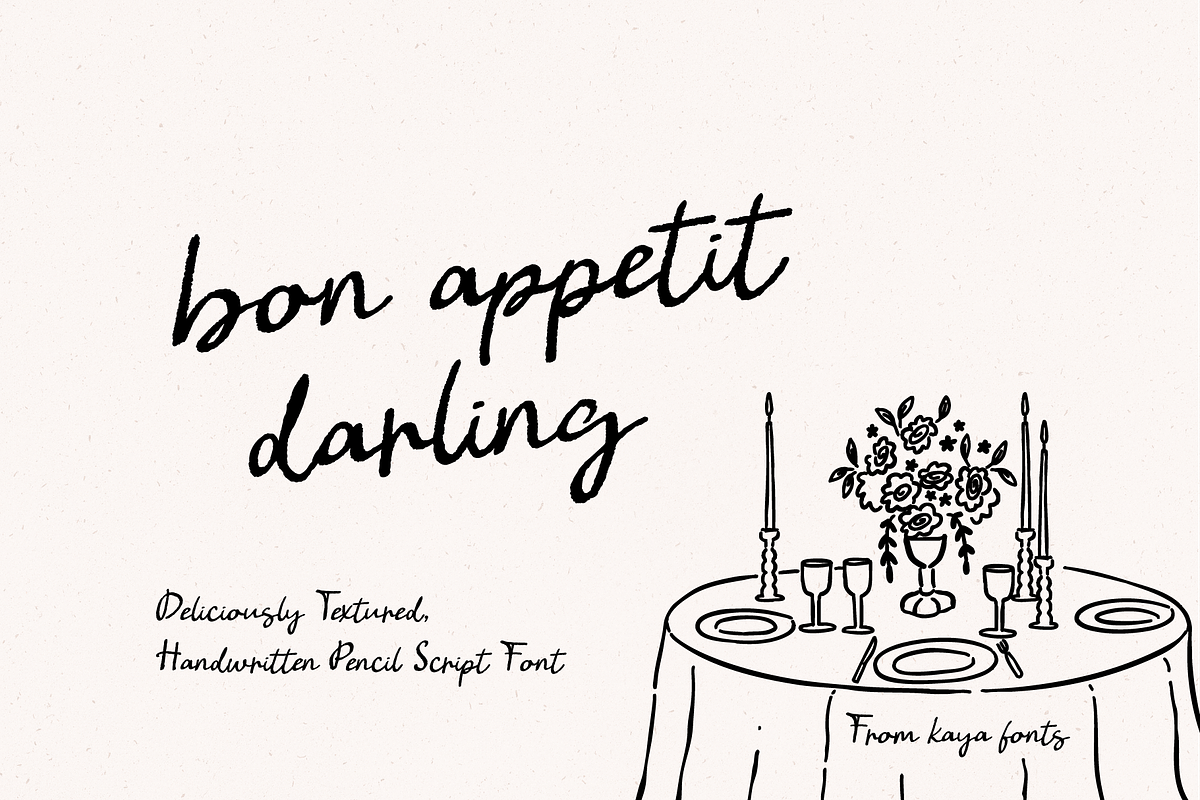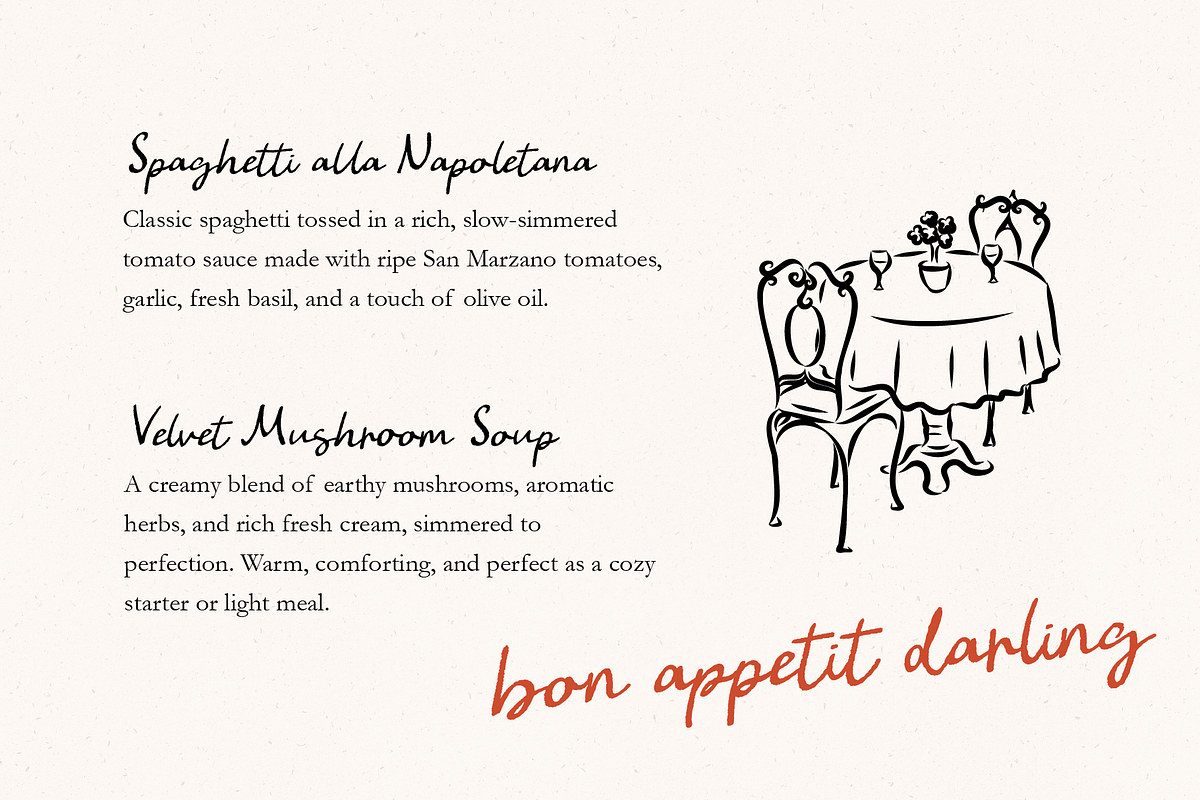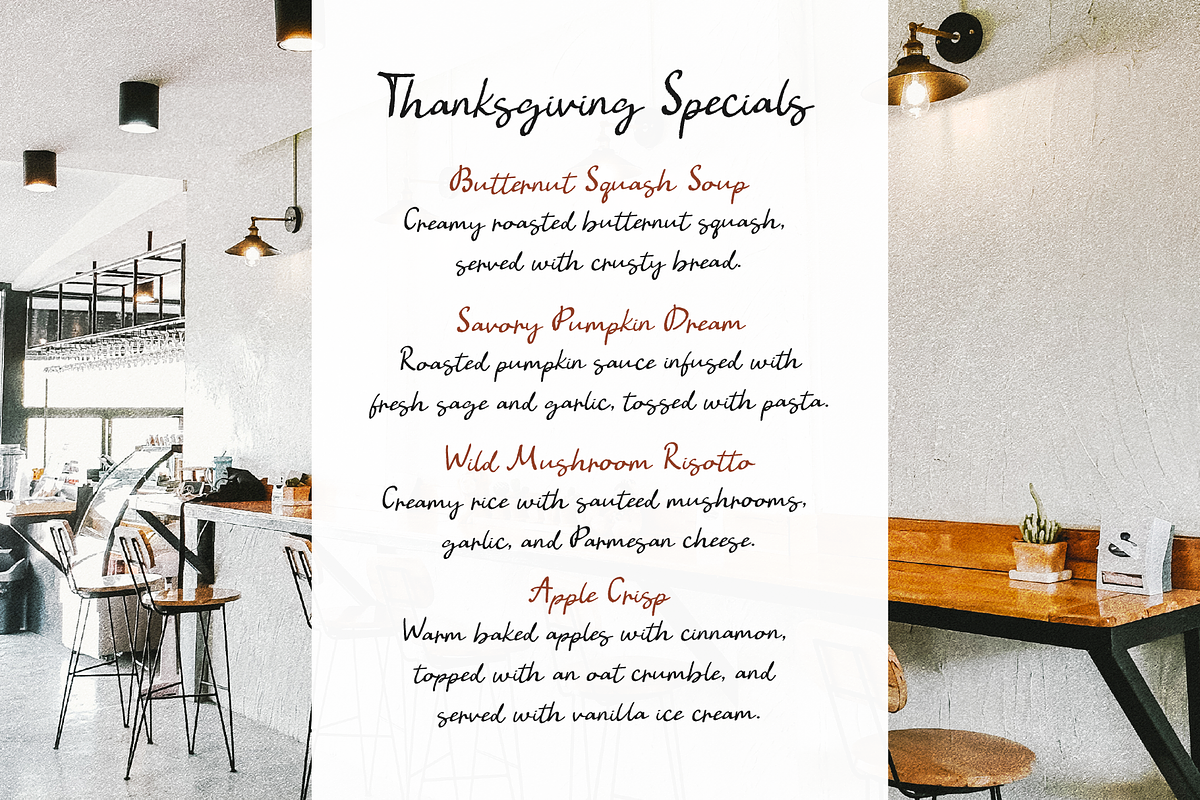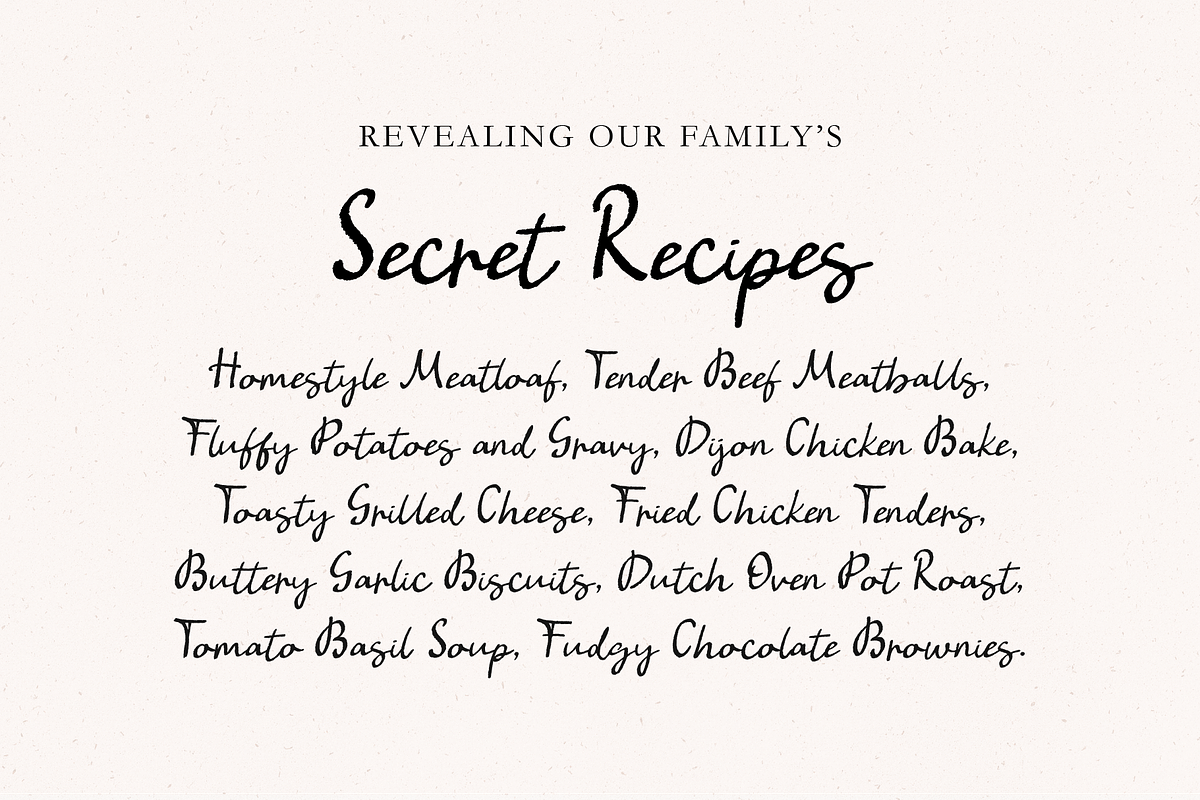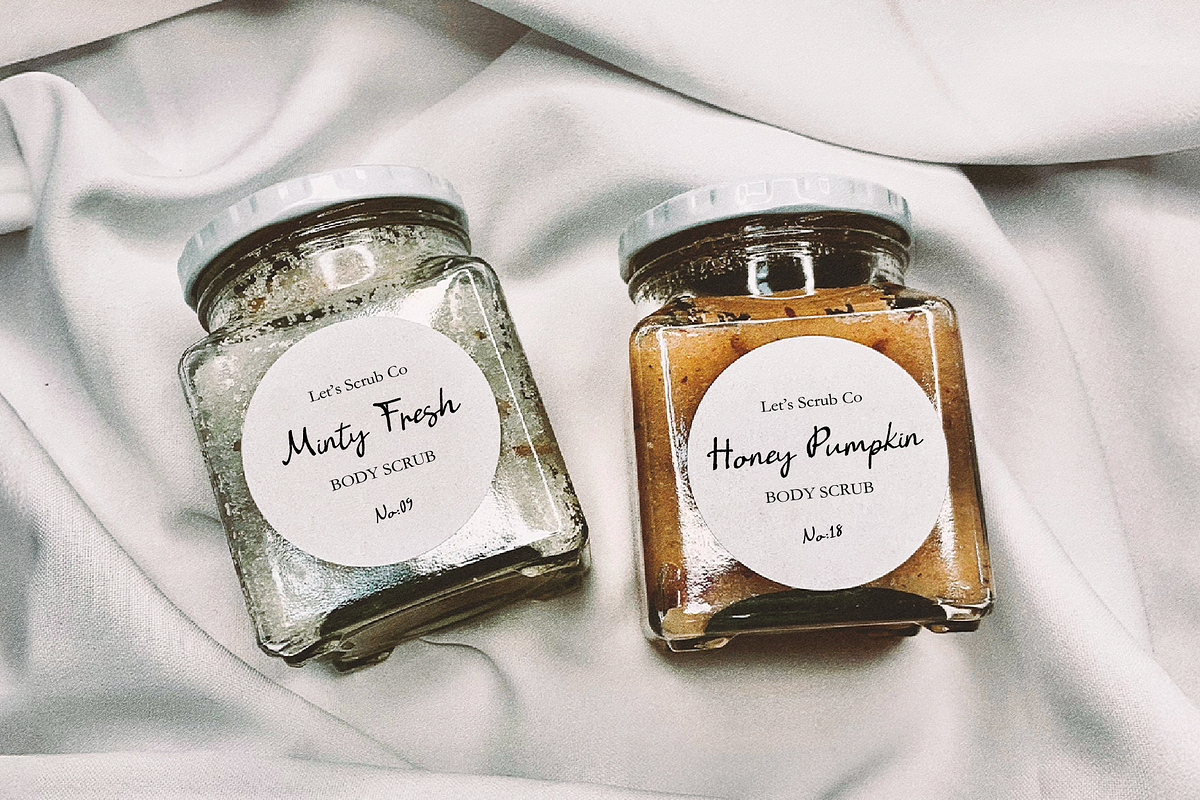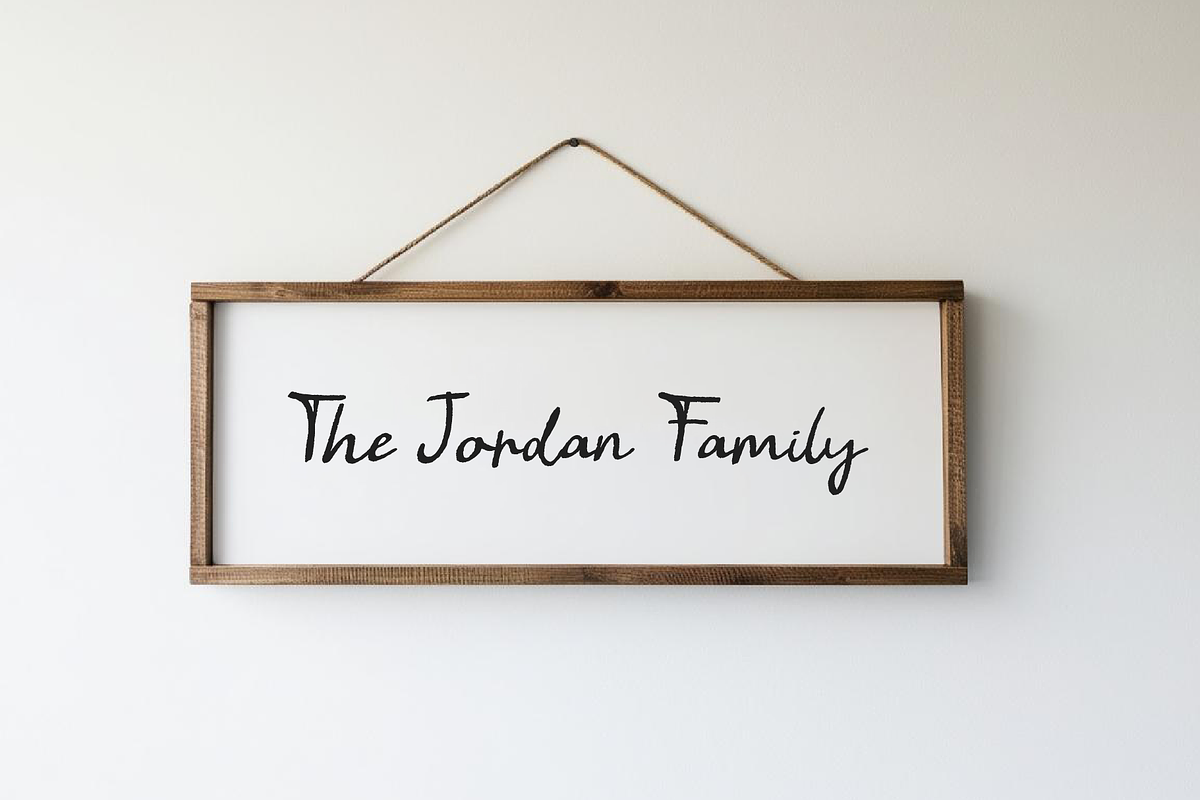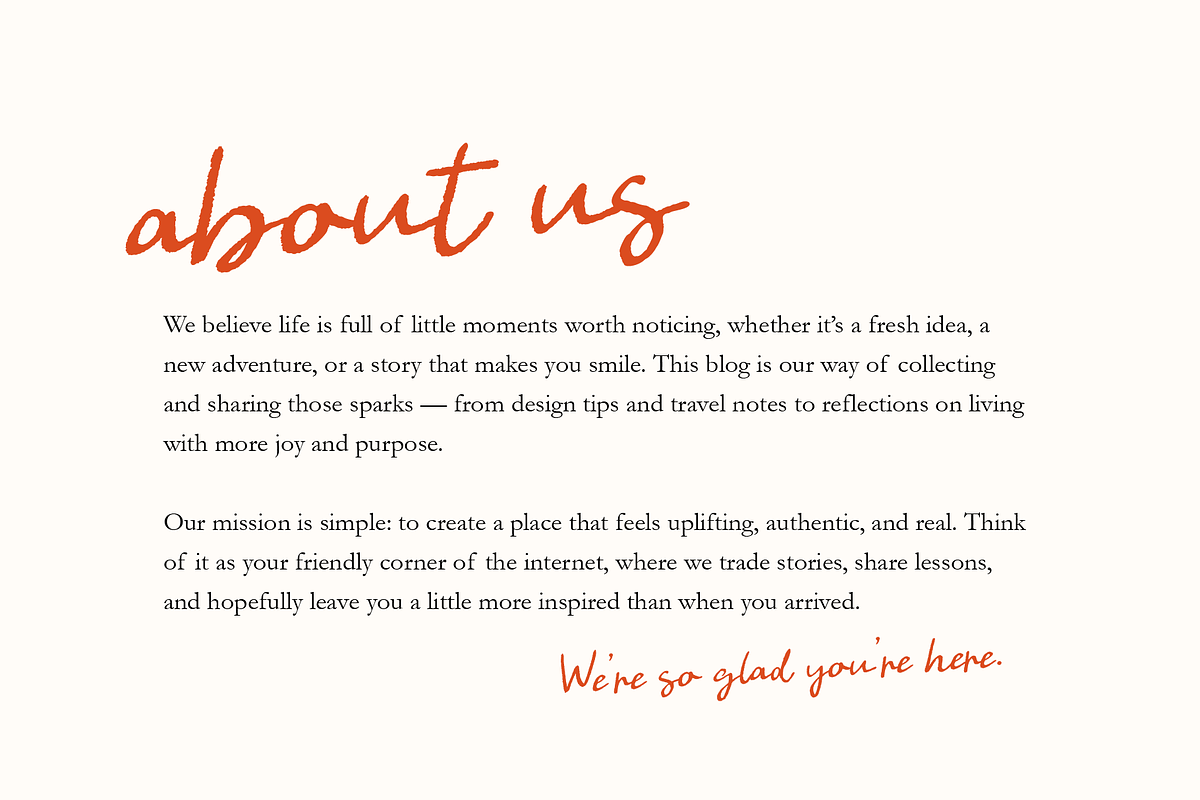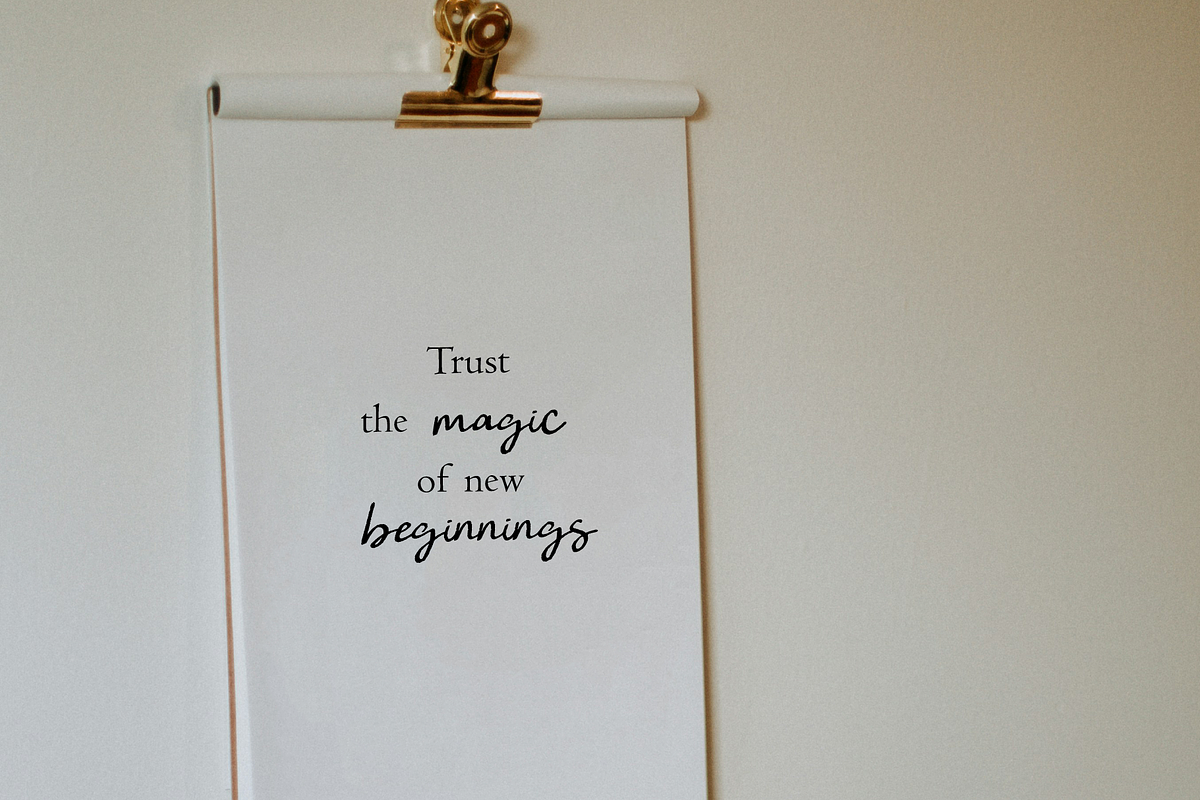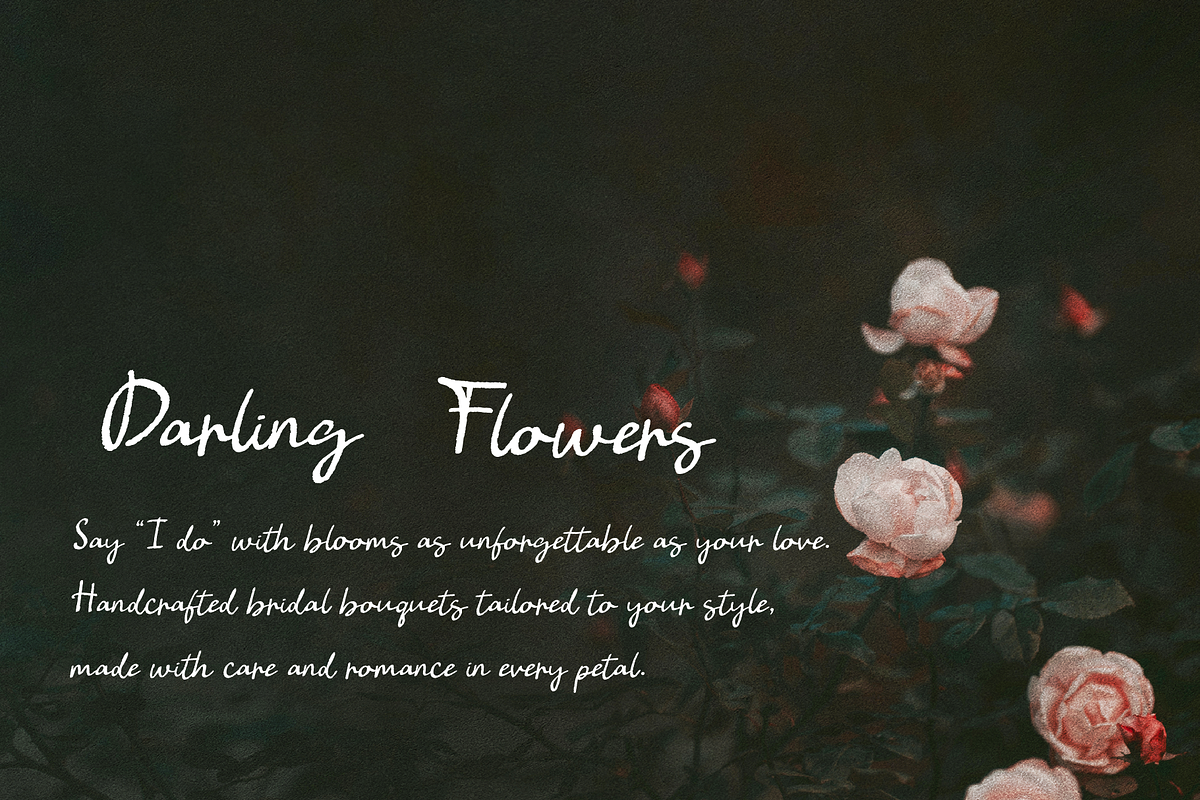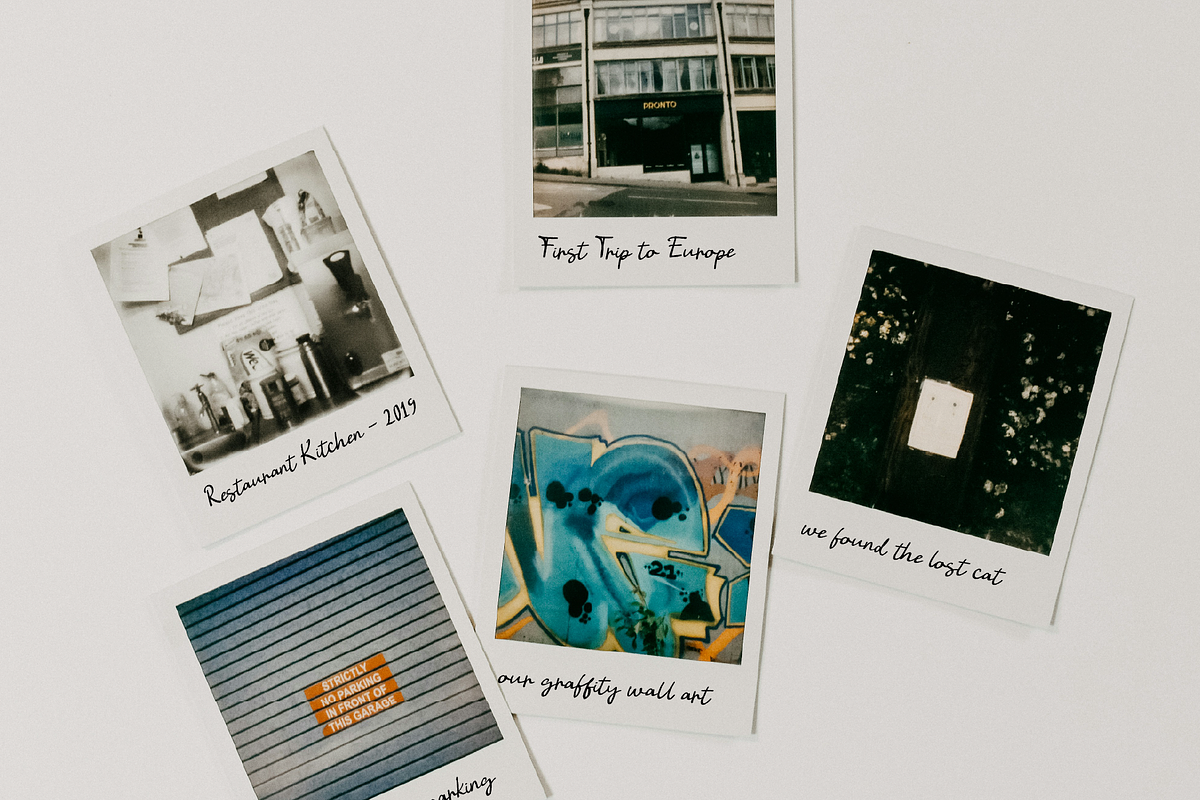
Bon Appetit Darling Pencil Script
Bon Appetit Darling is a deliciously textured handwritten pencil script font with a cozy, rustic charm. Whether you're crafting a café menu, wedding invitation, editorial designs, packaging, labels, recipe cards, farmhouse signs, and seasonal branding this font brings a warm, organic feel that’s irresistibly stylish.